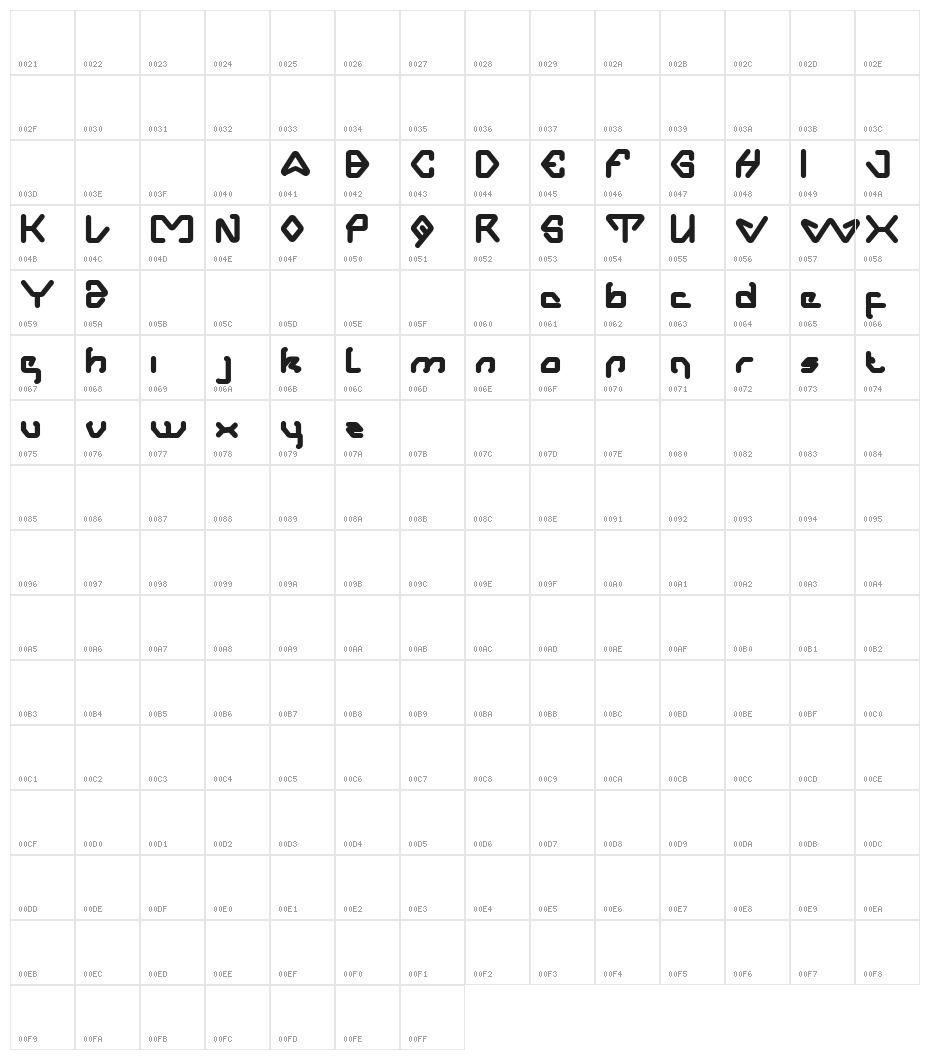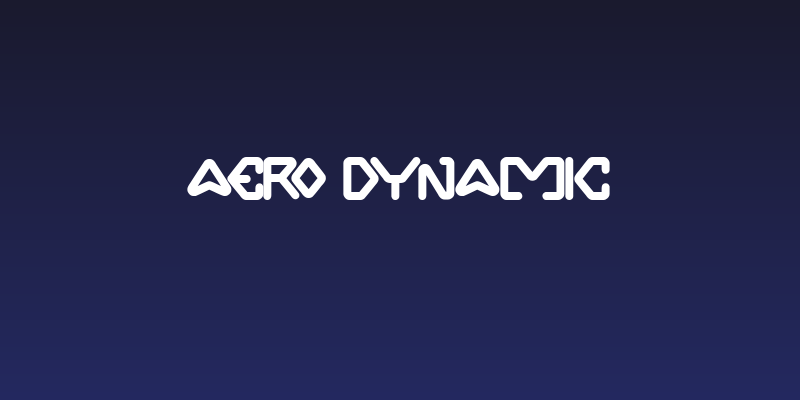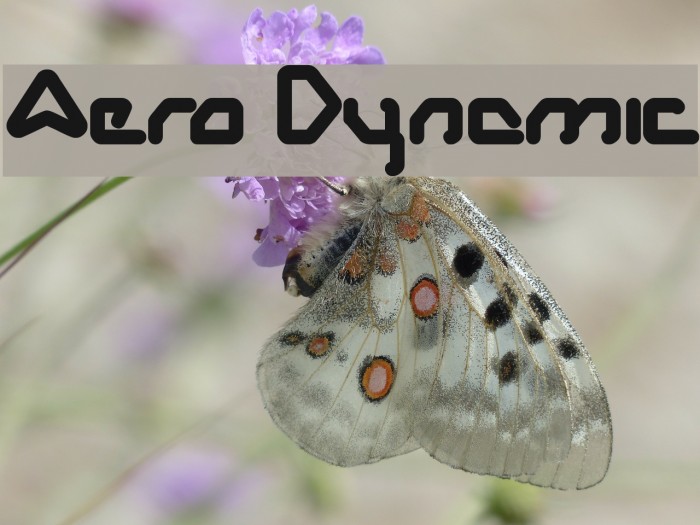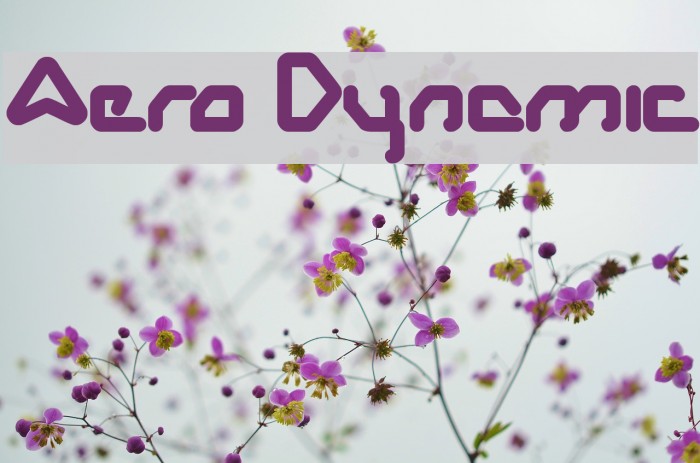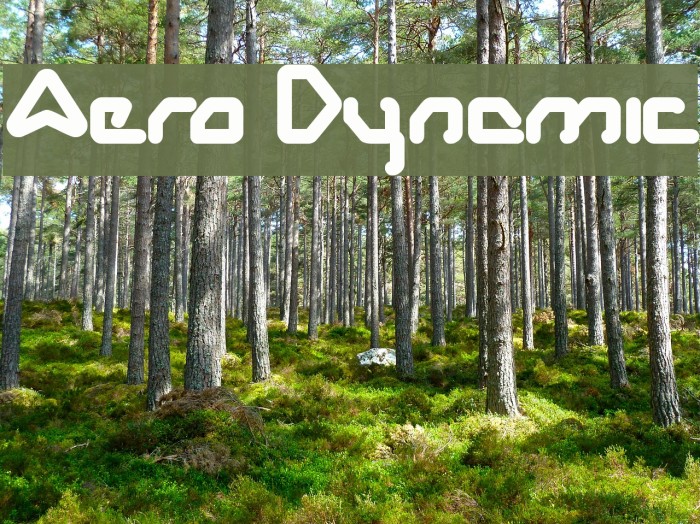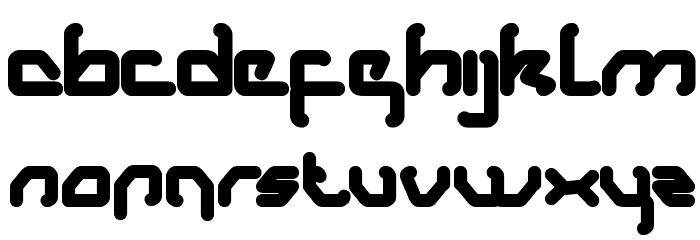
Aero Dynamic Font
Aero Dynamic Description
This font features a futuristic and geometric design, characterized by bold, interconnected lines and angular shapes. The uppercase letters exhibit a unique, almost stencil-like appearance with consistent thickness, creating a modern and industrial feel. The lowercase letters maintain this geometric style, offering a cohesive look across the alphabet. The numbers and special characters follow the same design principles, ensuring uniformity throughout. This font's distinct style makes it ideal for projects that require a contemporary and edgy aesthetic.
| Proposed Projects | Ideal for technology branding, sci-fi posters, video game titles, and modern advertising. |